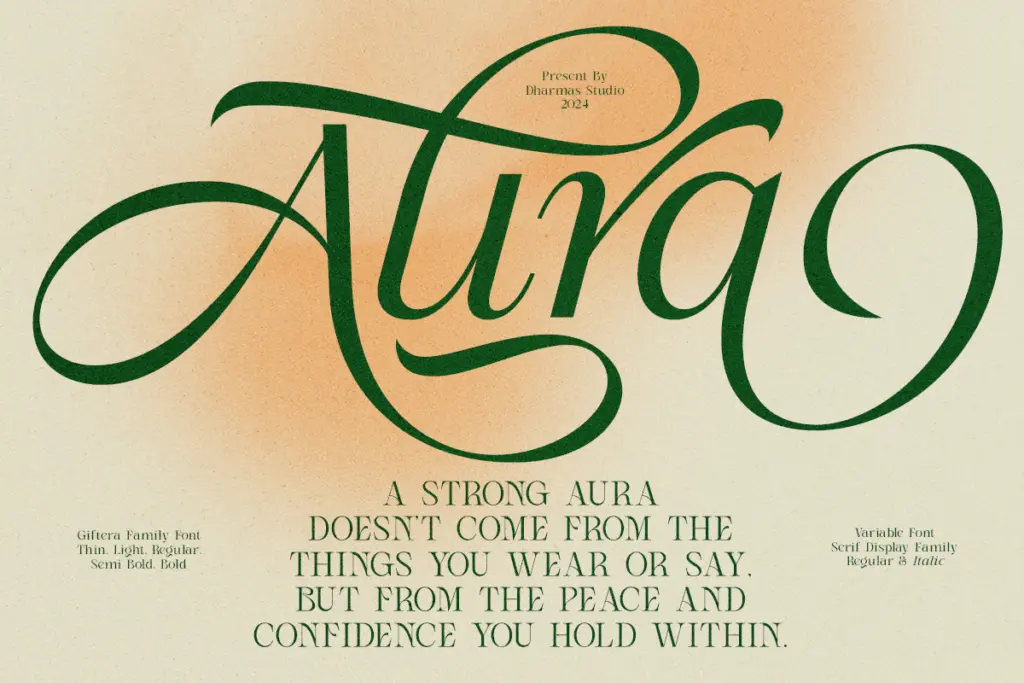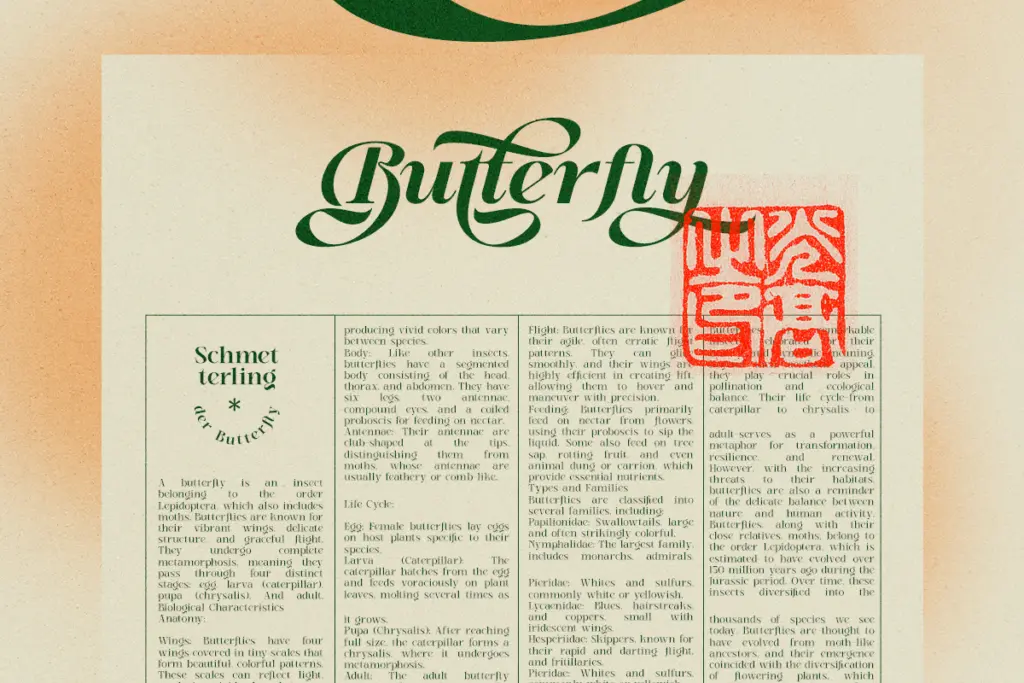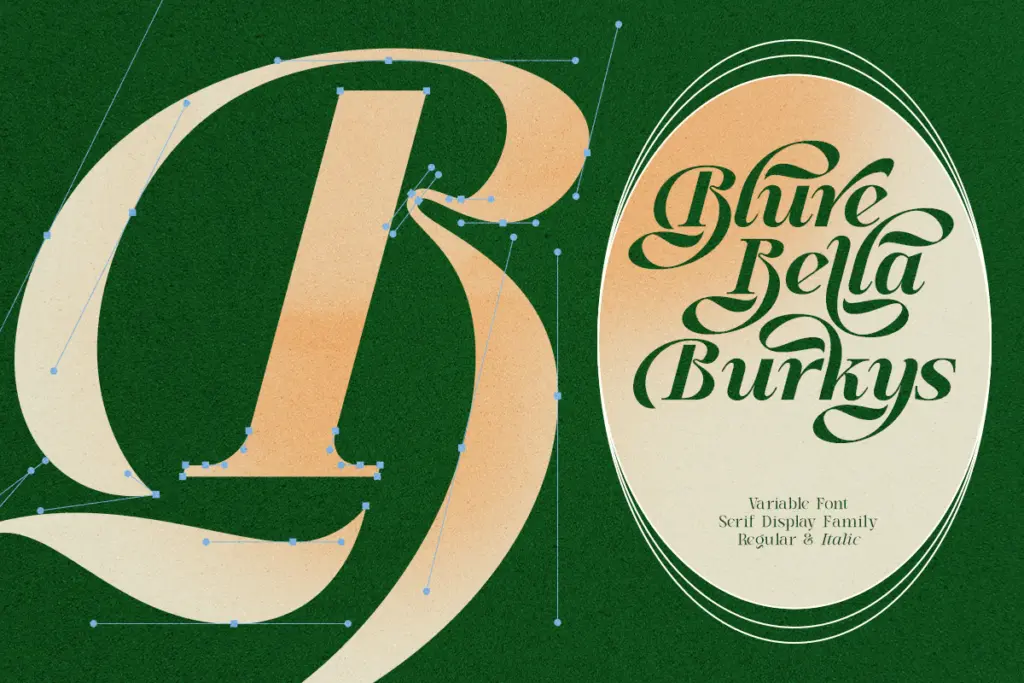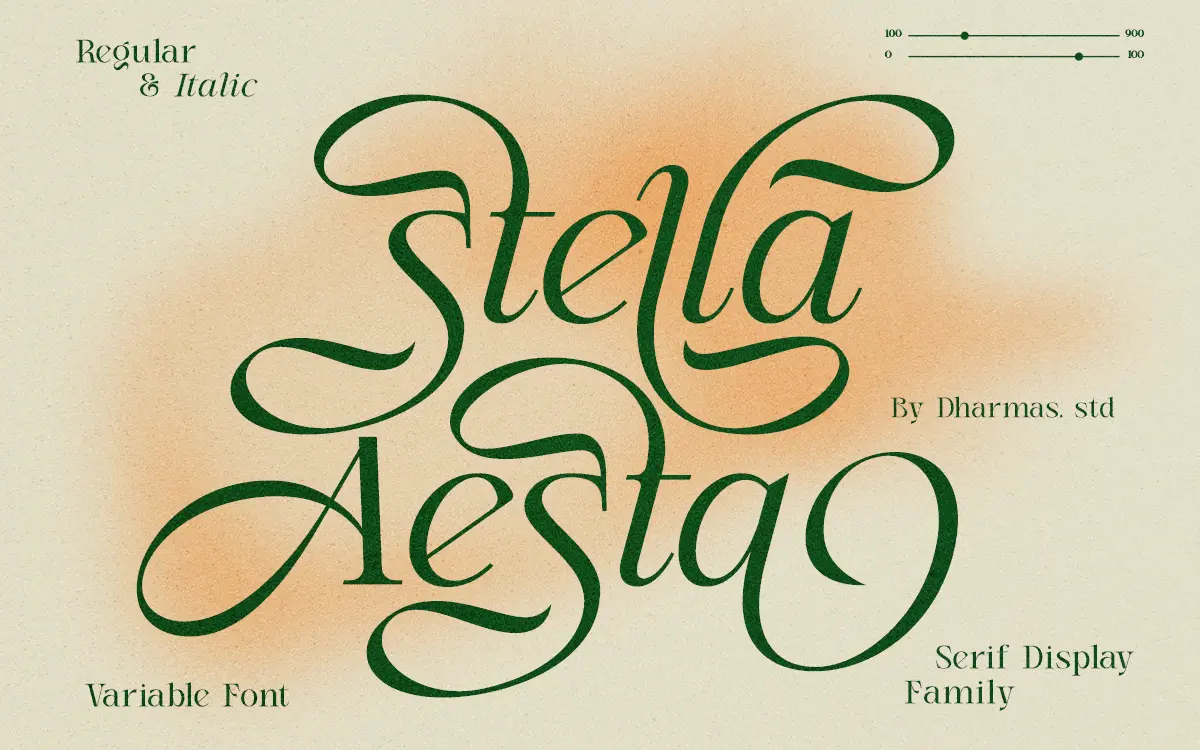
Stella Aesta is a serif built for decoration first and reading second. The brief calls it a butterfly swash display family, and the letterforms back that up: fine hairline strokes, high contrast between thick and thin, and a swash system that flares out at the caps and lowercase ascenders like a wing unfurling. It sits in the same territory as the flourished wedding-invitation serifs that have been popular for a decade, but the wing-inspired curves give it a slightly more ornamental, less strictly calligraphic character than most of that crowd.
The family spans five weights, each with an italic, for ten styles total. The Light and Light Italic are where the concept works best — the contrast is delicate without collapsing, and the swashes have room to breathe. Move up to Semi Bold and the flourishes start to compete with the stroke weight; the letters feel busier rather than bolder, which is worth knowing if you were hoping to use the heavier weights for anything other than short, ornamental headlines.
The selling point here is the alternate set: over 157 alternates and ligatures, PUA-encoded so they’re reachable without OpenType-savvy software. That matters in practice — a font this dependent on swashes is only as good as how easily a buyer can actually get to them, and PUA encoding means the fancier forms show up even in Word or Canva, not just Illustrator or InDesign with full OpenType panel support.
Beyond the alternates, the set covers standard letters, numerals, punctuation and a run of special swash characters, with multilingual character support across a long list of mostly European and African languages using Latin-based orthographies. There’s no mention of extended symbol sets or tabular figures, so treat this as a display font for words and titles, not a workhorse for data-heavy layouts. The variable font format is a genuine convenience — it lets you dial between weights rather than committing to one file, useful when you’re testing a headline against a logotype at a different size.
This is a font for short pieces of text where ornament is the point: a bride and groom’s names on a save-the-date, a perfume bottle’s wordmark, a magazine’s cover line, a boutique’s logotype. The Light weights in particular suit anything that needs to read as expensive and unhurried — beauty packaging, fashion lookbooks, editorial pull quotes. It is not a body-text font, and nobody designing it seems to have intended it as one; the swashes and contrast make sustained reading tiring past a headline or two.
Where it earns its keep is in branding work that needs a handmade, romantic feel without commissioning custom lettering — a logo, a monogram, a single elegant line on a package. Keep it to short strings, lean on the lighter weights when contrast and legibility both matter, and use the alternates sparingly rather than switching every letter, or the wing-like flourishes start to fight each other for attention.
- 157+ PUA-encoded alternates work in Word and Canva, not just full OpenType apps
- Light and Light Italic weights strike a genuinely elegant balance of contrast and swash
- Variable font format makes weight testing fast for logo and headline work
- Semi Bold and Bold weights get visually busy as swashes compete with heavier strokes
- No indication of tabular figures or extended symbols, limiting it to short display text
Stella Aesta is a decorative serif that does one job well: short, ornamental lines of text for luxury and romantic branding. The alternate system and PUA encoding make the swashes genuinely usable, but the heavier weights get crowded and it's not built for anything beyond headline-length copy.